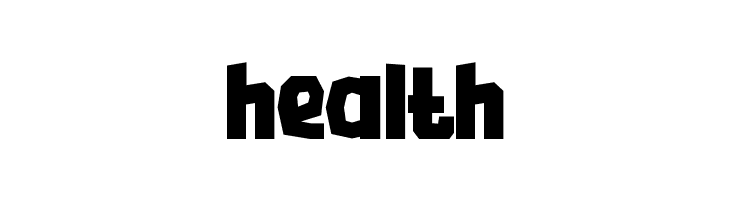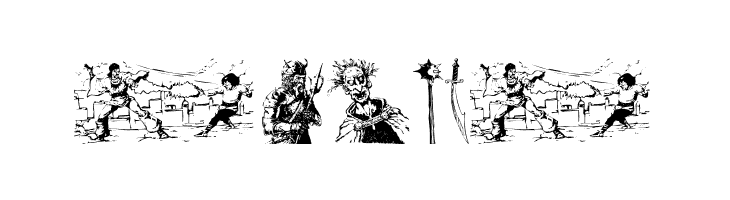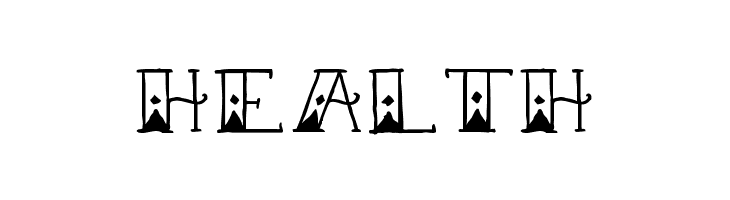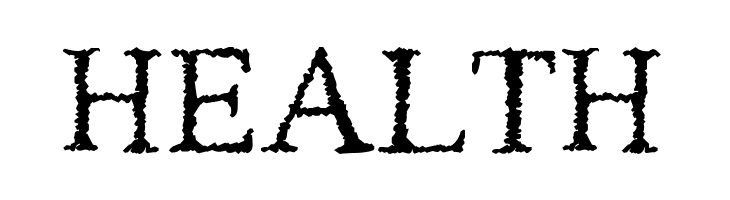
A bold, textured font with a rugged, hand-carved appearance.
A decorative font with letters integrated into sailboat designs, perfect for nautical themes.
A bold, angular font with a geometric and rugged style.
A bold, rugged font with a hand-chiseled, ancient stone appearance.
Fantasy-themed clipart illustrations form each character.
A decorative font with camping-themed illustrations embedded in each character.
A bold, rugged font with distressed edges and a hand-crafted appearance.
A decorative font with a nautical theme, featuring bold strokes and intricate details.
A rugged, distressed font with a vintage, hand-drawn appearance.
A bold, dynamic font with sharp, angular strokes conveying energy and intensity.